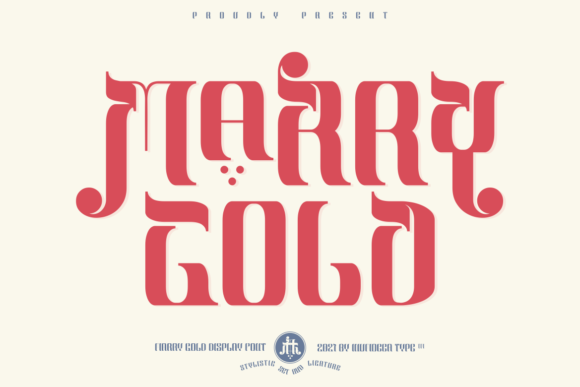
How Marry Gold Became the Hero of My Editorial Design Projects
As a designer working on a lifestyle blog redesign, I found myself scrolling endlessly through font libraries, searching for something that felt both modern and memorable. The goal was to refresh the blog’s visual identity without compromising readability or brand warmth. That’s when I discovered Marry Gold—a display font that immediately stood out for its elegant personality and editorial versatility. What started as a curiosity quickly turned into a design staple across headers, feature graphics, and even printable content.
Marry Gold is not your typical display font. It carries a soft, slightly whimsical rhythm that feels intentional without being overly ornamental. The letterforms have a refined balance between structure and flow, making it ideal for projects that need a touch of sophistication without sacrificing readability. Whether I was crafting a bold blog header or designing a printable wedding checklist, this font consistently delivered a polished yet approachable tone.
One of the first uses I tried was in a digital recipe ebook I was producing for a food blogger. The challenge was to create a cover that felt both elegant and inviting. I used Marry Gold for the title and section headers, pairing it with a clean serif font for body copy. The contrast worked beautifully—Marry Gold drew the eye without overwhelming the layout. Its PUA encoding also allowed me to access alternate glyphs easily, adding subtle decorative touches that elevated the overall design.
Perfect for Titles, Headers, and Branding Moments
What makes Marry Gold especially effective is its ideal fit for titles, headers, and branding elements. It’s not meant for long-form body text, and that’s perfectly fine. In editorial design, clarity of hierarchy is key, and this font plays a strong supporting role in guiding the reader’s eye. Whether used for a newsletter header or a digital magazine cover, it brings a sense of curated intentionality that enhances the reading experience.
I also found it particularly effective in a printable wedding guide I was designing. The client wanted something romantic yet modern, and Marry Gold struck that balance effortlessly. The font’s slightly curved edges and open spacing gave it a gentle warmth, while its structured baseline ensured it remained legible across both screen and print formats. I used it for chapter openers and pull quotes, always pairing it with more neutral fonts to maintain readability in the rest of the document.
How Marry Gold Supports Visual Flow and Reader Engagement
One of the most underrated aspects of typography is how it affects reader engagement. A well-chosen font can make content feel more inviting and easier to digest. Marry Gold contributes to this by offering a sense of rhythm and balance that feels natural in editorial layouts. When used sparingly—like for a blog’s featured post title or a course PDF’s header—it adds visual interest without distracting from the message.
For a digital magazine layout I was working on, I used Marry Gold for the main cover title and section headers. Paired with a modern sans serif for navigation and a serif font for article bodies, it helped establish a clear visual hierarchy. Readers could easily scan the layout, and the font’s personality gave the publication a distinctive character. It wasn’t just about looking good—it was about creating a reading rhythm that felt intuitive and engaging.
Practical Uses and Readability Considerations
When considering Marry Gold for a project, it’s important to understand its strengths and limitations. While it shines in titles and short-form text, it’s not ideal for extended body copy. This is especially true for screen reading and mobile layouts where clarity is paramount. However, when used in headers or pull quotes, it adds a dynamic visual element that enhances the editorial flow without causing fatigue.
I also tested Marry Gold in a printable planner I was designing for a wellness coach. The font’s elegant curves and open spacing translated well to print, and its PUA-encoded glyphs allowed for decorative accents that added personality without clutter. For the digital version, I made sure to pair it with a clean sans serif for labels and instructions, ensuring that the layout remained functional and easy to navigate across formats.
Smart Font Pairing for Editorial Design
One of the joys of working with display fonts like Marry Gold is the opportunity to create thoughtful font pairings. A common rule in editorial design is to pair a decorative display font with a more neutral companion for body text. I found success pairing Marry Gold with a classic serif font like Georgia for article bodies, and a crisp sans serif like Lato for captions and navigation menus.
This approach worked especially well in a recent newsletter design project. The header was set in Marry Gold, giving it a distinctive voice, while the body text used a clean sans serif for optimal readability. The result was a newsletter that felt both stylish and functional—perfect for readers who wanted a visually appealing yet easy-to-scan format.
Whether you're designing a blog header, a digital magazine layout, or a printable guide, Marry Gold offers a unique combination of elegance and readability that’s hard to match. It’s a display font that feels intentional without being overpowering, and its versatility makes it a welcome addition to any designer’s toolkit. Used thoughtfully, it can help elevate your editorial design and create a more engaging reading experience for your audience.